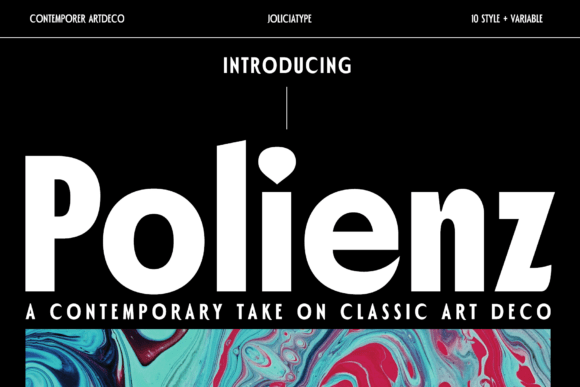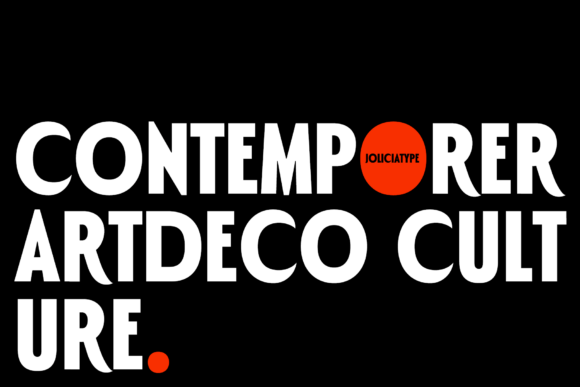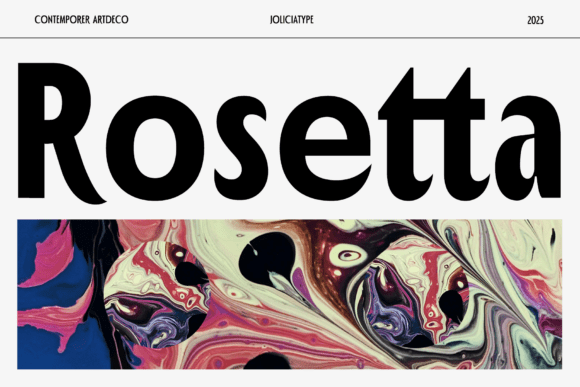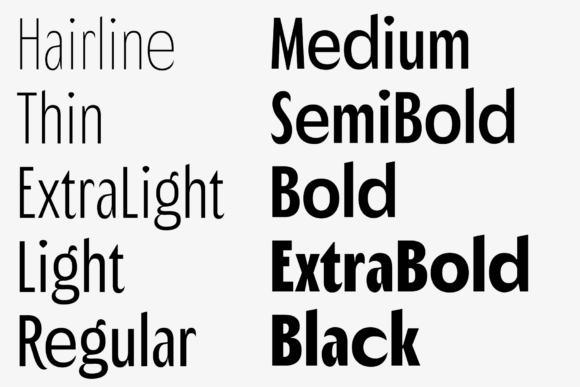
Polienz Font: Modern Art Deco Typography for Elegant Logo Design
About the Polienz Font
The Polienz Font offers a perfect balance of form and function for your design needs. Polienz is a contemporary Art Deco-inspired sans serif typeface that blends vintage elegance with a modern edge. With its clean lines and bold geometric structure, Polienz brings a sophisticated flair to any design.
Featuring 10 weights, from Hairline to Black, Polienz offers full flexibility—perfect for everything from standout headlines and stylish logos to editorial layouts and refined branding projects.
Its balanced aesthetic makes Polienz a great choice for packaging, fashion, posters, or any creative work that calls for a touch of timeless class with a modern twist.
Polienz Font Usage Examples
Polienz Font Example